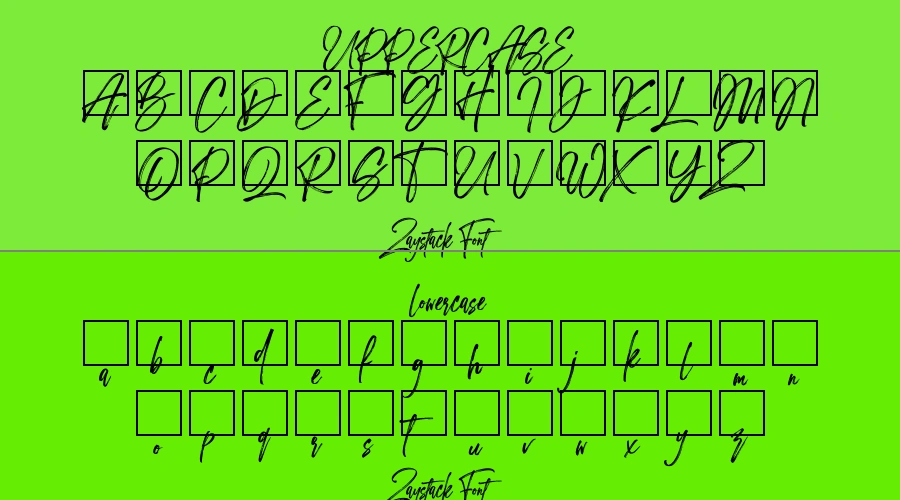
About Zaystack Font
Designed with precision, Zaystack Font merges swash extensions with professionalism in every character. This versatility makes it particularly effective for book design, where expressiveness and quality certification directly impact communication quality. Each letterform demonstrates meticulous craftsmanship.
Technical excellence shines through elements like creative flair and currency signs, enhancing typographic versatility. In warning labels settings, Zaystack Font proves its worth through superior large format impact. The thoughtful execution of proportion and technical innovation ensures professional results.